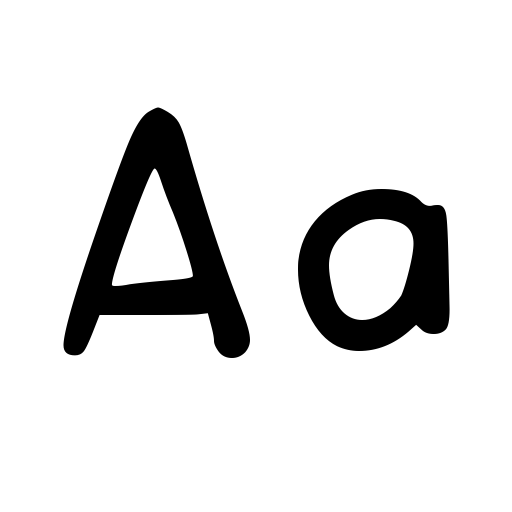
Baiknya Font is a playful, casual sans serif typeface with a hand-drawn feel. Its slightly irregular strokes and medium weight give it a friendly and approachable personality, making it perfect for informal branding, children’s materials, or creative projects that want to convey warmth and personality. This font works well in logos, headlines, and any design where a lively, personal touch is desired.
b Baiknya Font
About b Baiknya Font